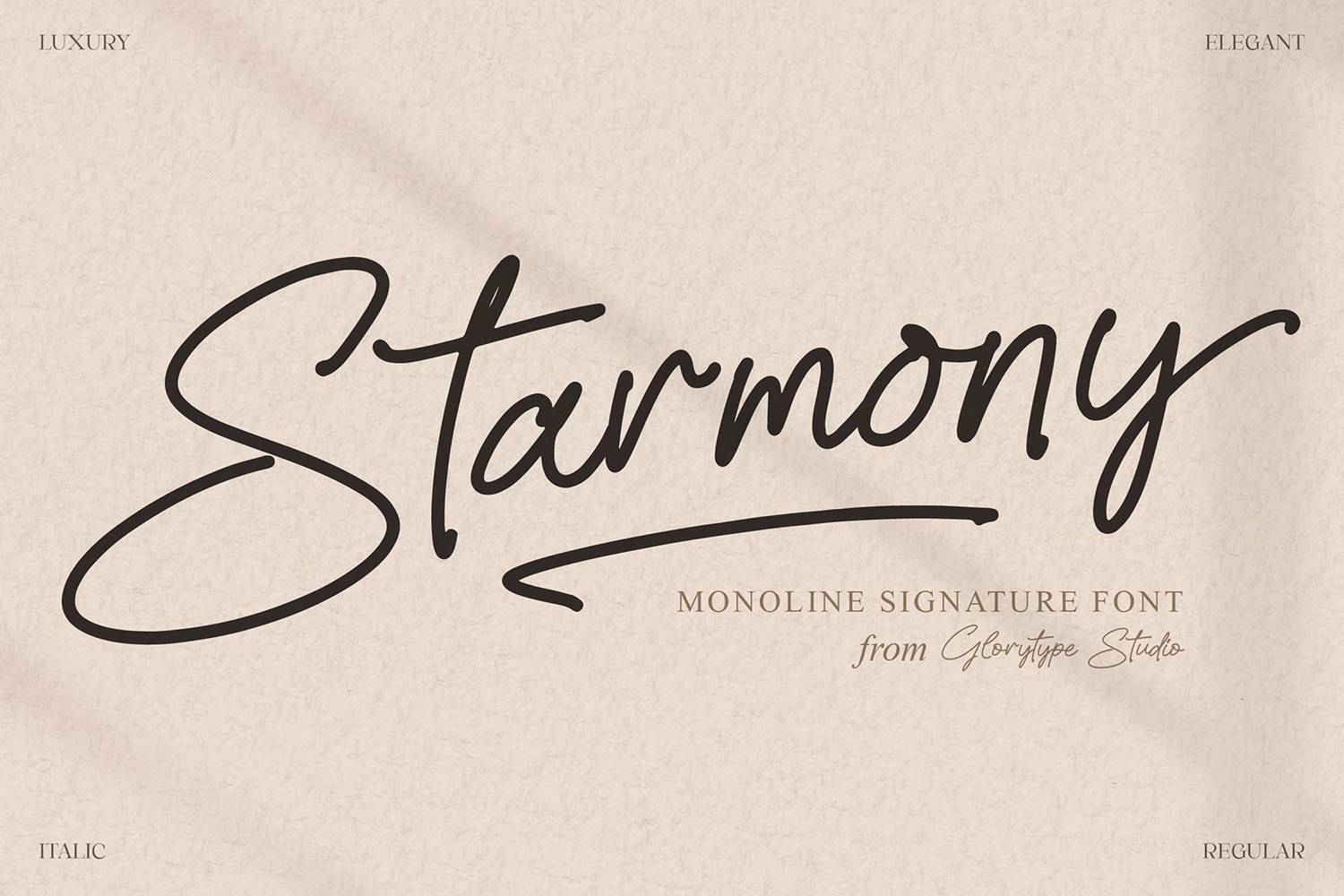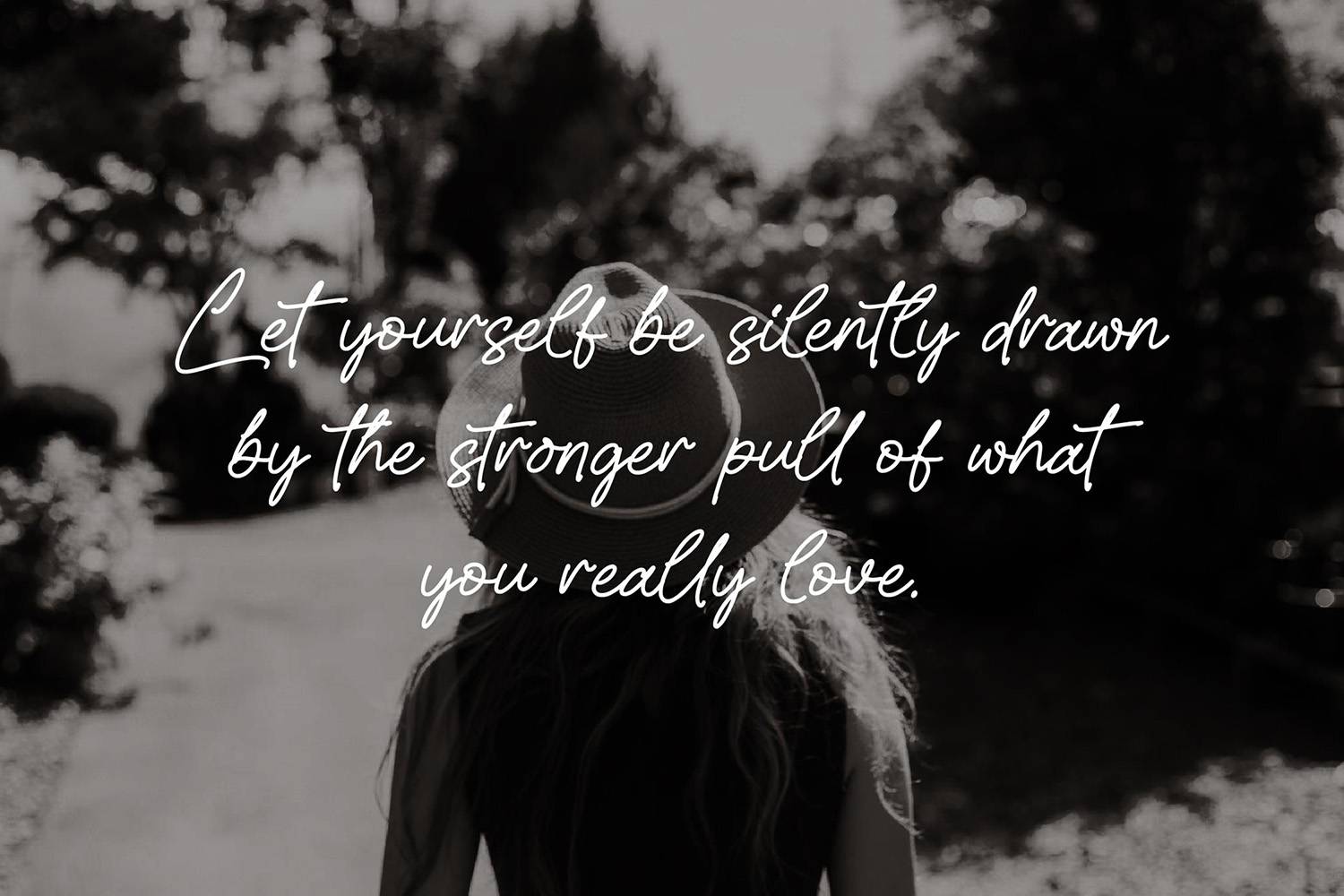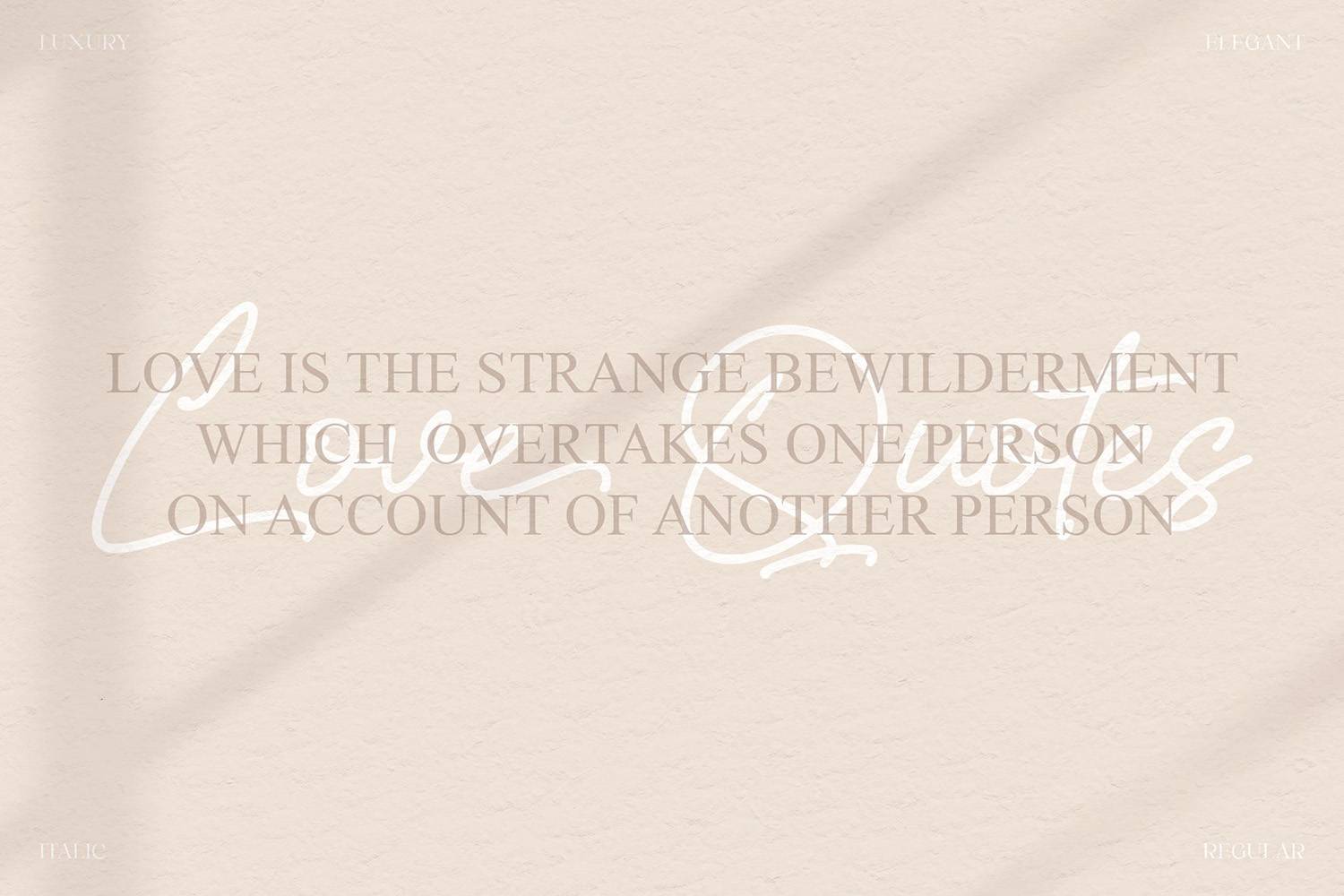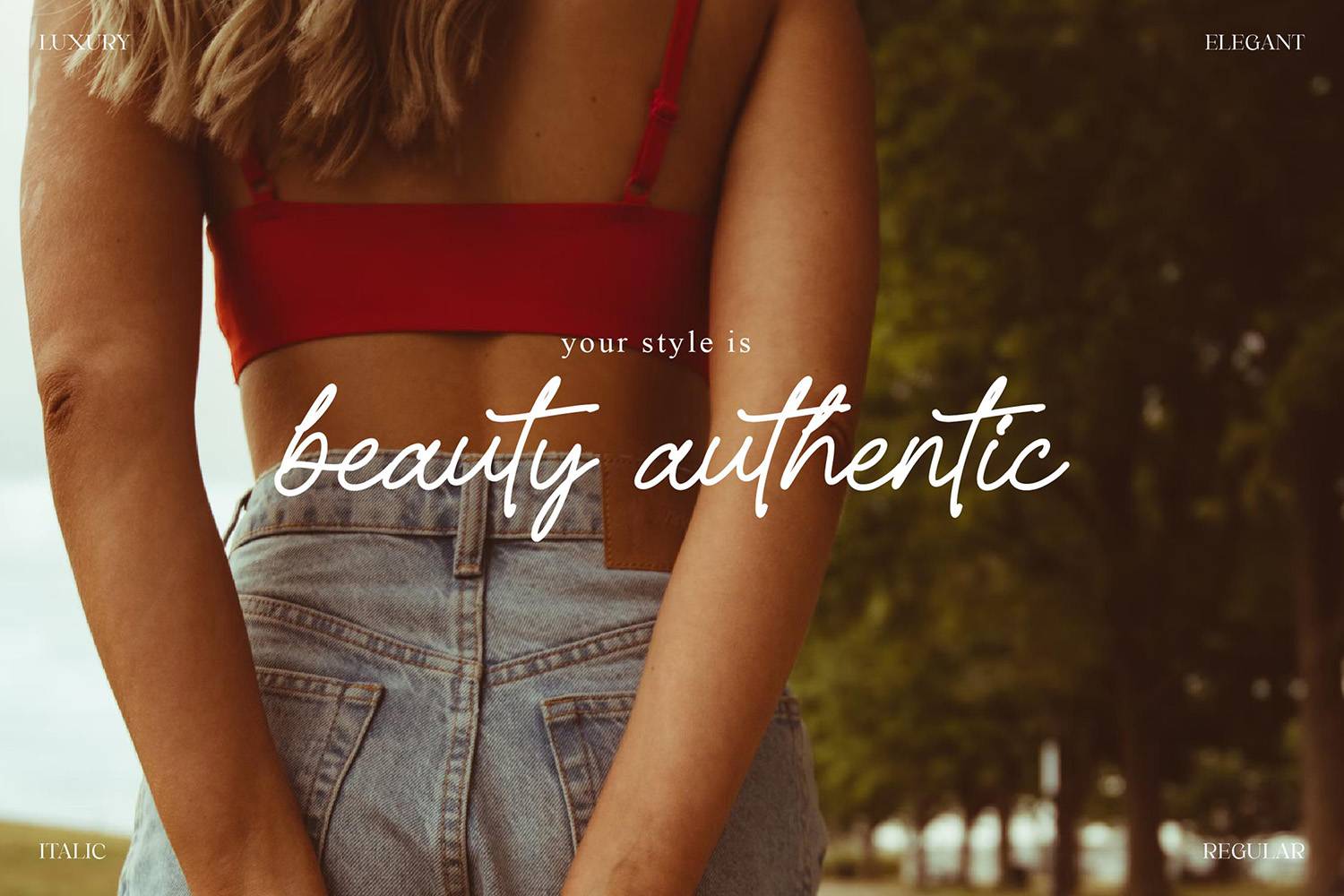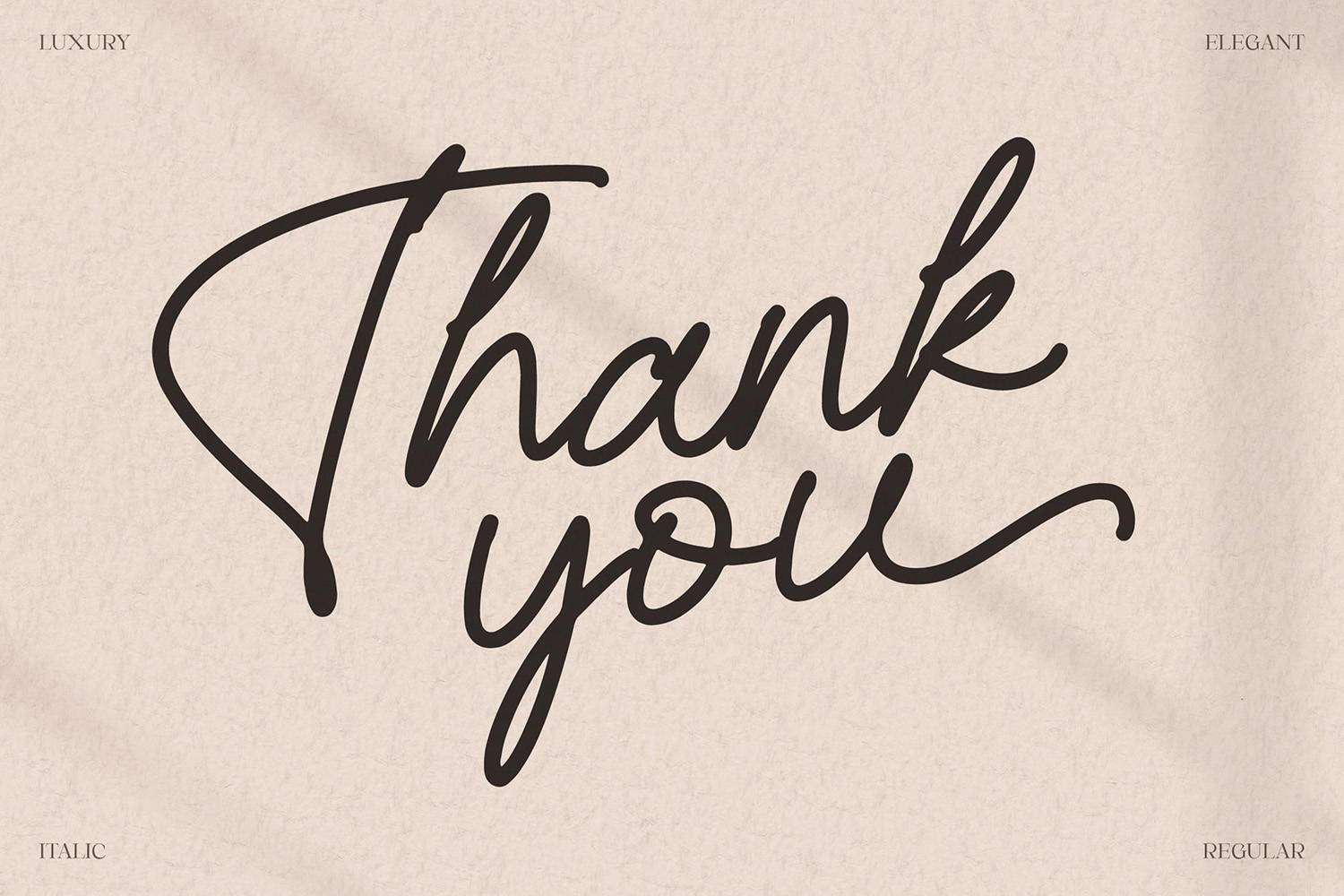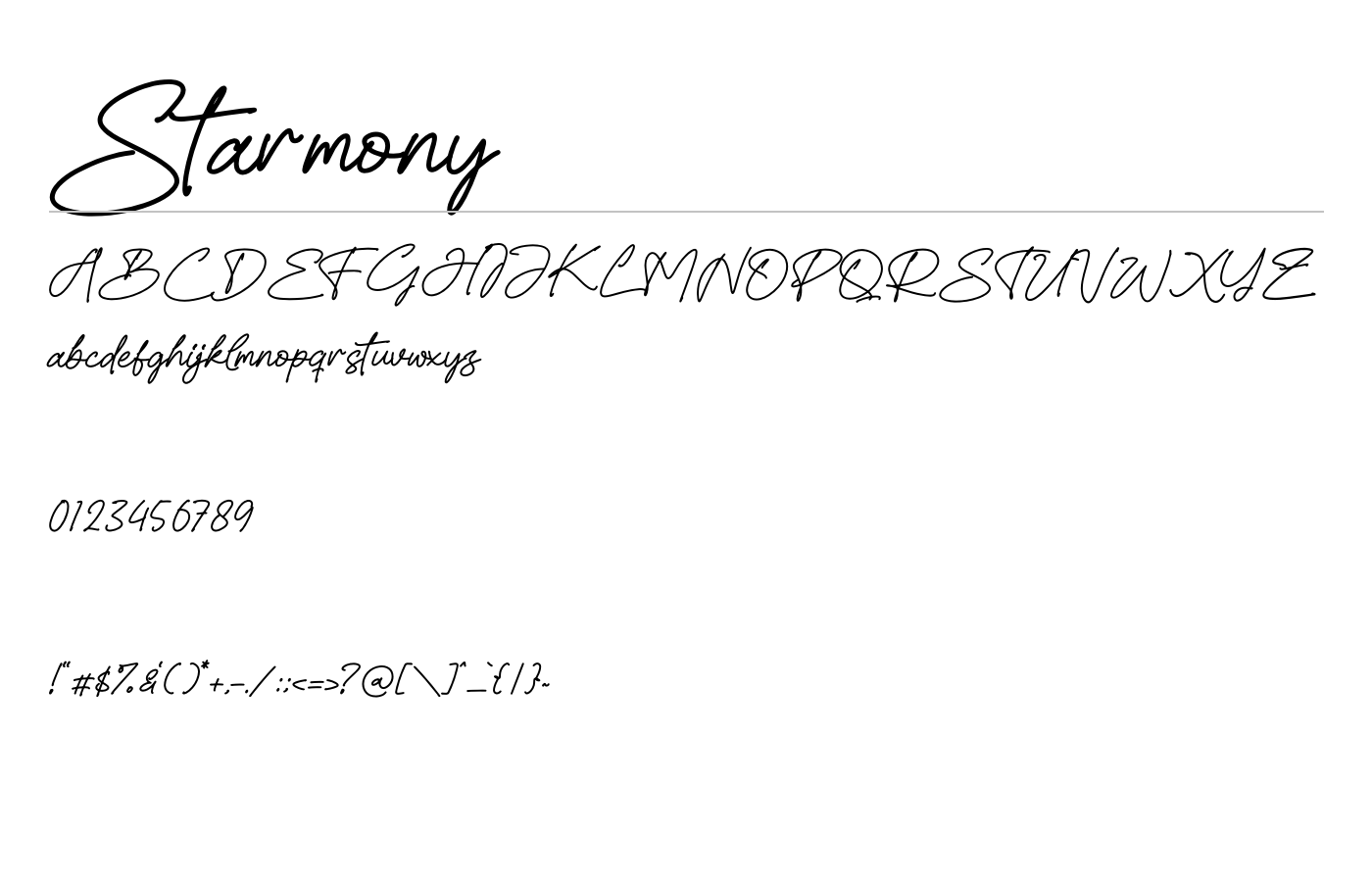
Starmony is a delicate script font characterized by its thin, flowing strokes and elegant, hand-drawn style. Its light weight and smooth, connected letters make it perfect for adding a personal, sophisticated touch to branding, invitations, and feminine design projects. This font works best in logos, headlines, and decorative text where a refined and graceful feel is desired.
Starmony Font
About Starmony Font